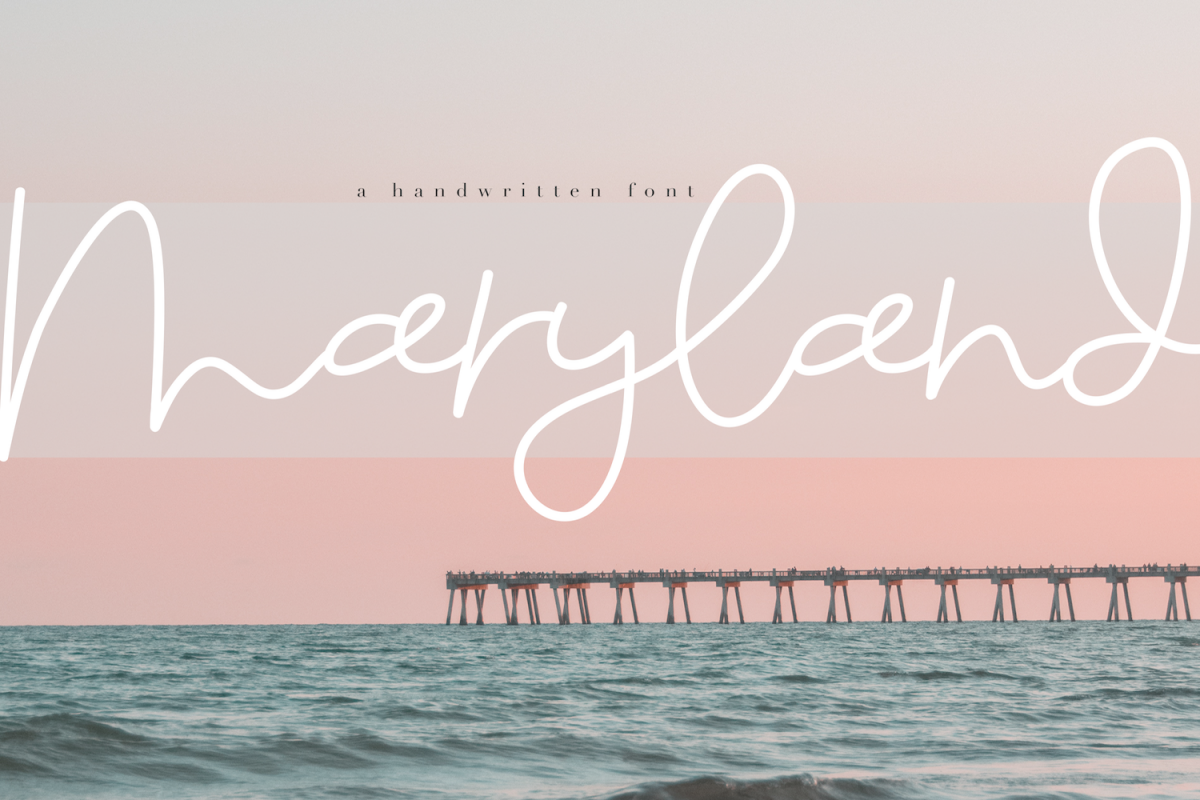
Maryland - A Fun Script Font
Maryland is a handwritten script font.
It has a fun and unique design!
This font is perfect for quotes, headings, blogs, logos, invitations and more!
There are no extra ligatures - I like to keep it simple.
This font *does* include accent characters.